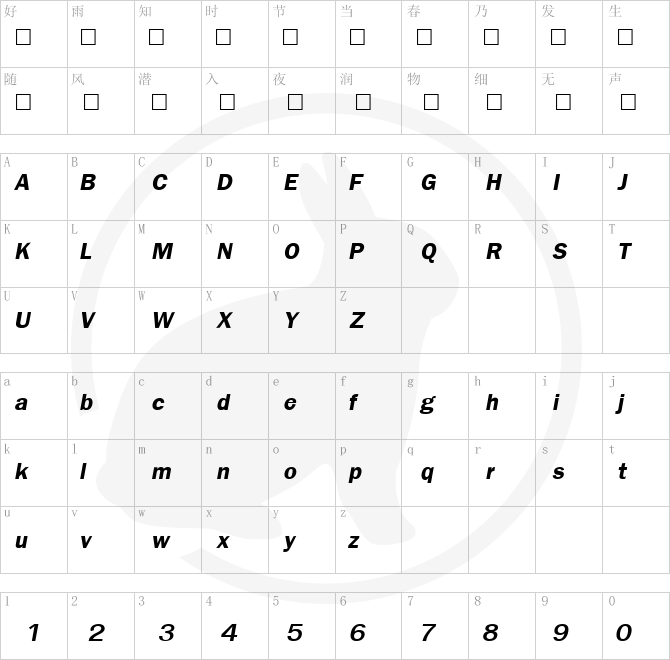
- Font Name:P5 BrowalliaUPC
- Subfamily:FontMonger:BrowalliaUPC Bold Italic
- Full Name:P5 BrowalliaUPC Bold Italic
P5-BrowalliaUPC-Bold-Italic.ttf is a very beautiful artistic font, P5-BrowalliaUPC-Bold-Italic.ttf is widely used in the design and printing of various books and pictures,P5-BrowalliaUPC-Bold-Italic.ttf has a strong visual impact,P5-BrowalliaUPC-Bold-Italic.ttf is a commonly used font in newspapers, magazines and books, and is used in posters, e-commerce Poster design, store design, logo design, font design and other fields.P5-BrowalliaUPC-Bold-Italic.